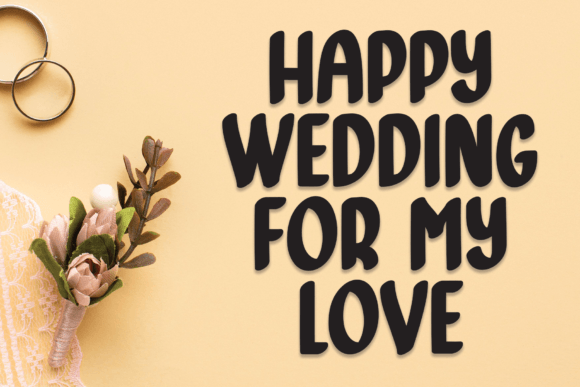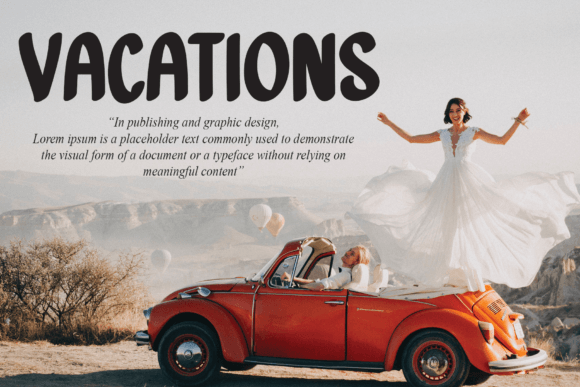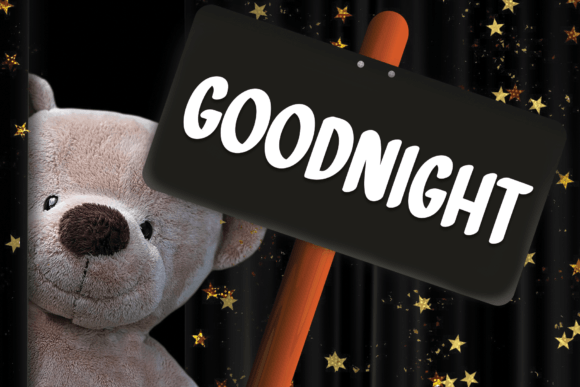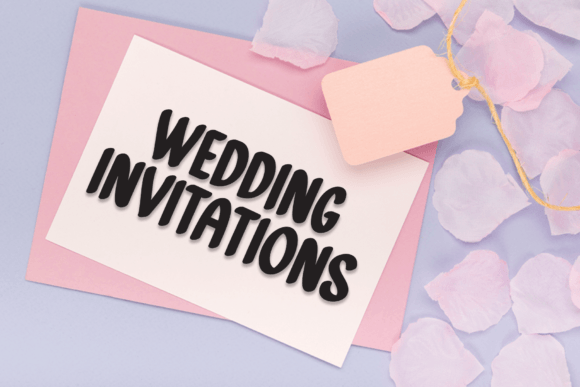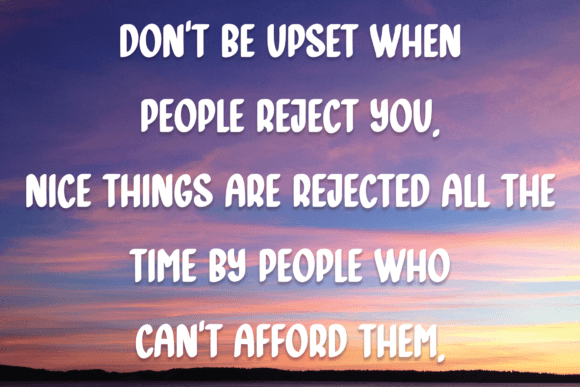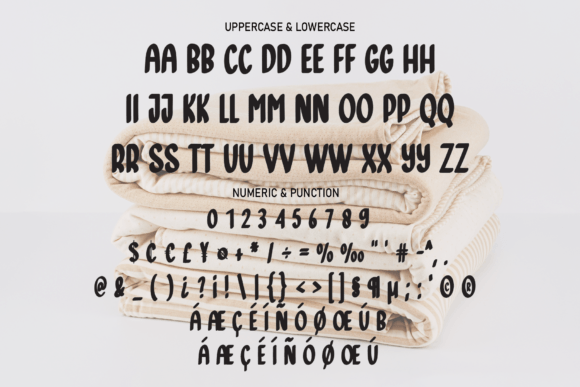
Introducing Blanket Winter Font: The Ultimate Modern Display Font
Are you tired of using the same old fonts for your designs? Look no further! Blanket Winter Font is here to revolutionize your typography game. This modern and bold display font is perfect for designers and crafters who want to add a touch of uniqueness to their projects.
What Makes Blanket Winter Font Special?
Blanket Winter Font boasts a latest style lettering that is both modern and eye-catching. Its bold and striking appearance makes it ideal for a wide range of applications, from wall displays and wedding invitations to social media posts and product packaging.
With Blanket Winter Font, the design possibilities are endless. Here are some of the many ways you can use this versatile font:
- Wall Displays: Create stunning wall displays that grab attention with Blanket Winter Font. Its bold letters are perfect for making a statement.
- Wedding Invitations: Add a touch of elegance and sophistication to your wedding invitations with this beautiful font.
- Social Media Posts: Make your social media posts stand out from the crowd with Blanket Winter Font. Its modern style is sure to grab attention.
- Logos: Create a unique and memorable logo for your brand with this striking font.
- Advertisements: Use Blanket Winter Font to create eye-catching advertisements that drive results.
- Product Packaging: Add a touch of personality to your product packaging with this bold font.
- Product Designs: Create stunning product designs that showcase your brand’s personality.
- Labels: Use Blanket Winter Font to create labels that stand out on store shelves.
- Photography: Add a touch of style to your photography with this beautiful font.
- Watermarks: Protect your images with a stylish watermark featuring Blanket Winter Font.
- Invitations: Create unique and stylish invitations for any occasion.
- Stationery: Add a touch of personality to your stationery with this modern font.
Why Choose Blanket Winter Font?
So why choose Blanket Winter Font over other display fonts? Here are just a few reasons:
- Unique Style: Blanket Winter Font boasts a unique and modern style that sets it apart from other fonts.
- Versatility: This font is versatile and can be used for a wide range of applications.
Tips for Using Blanket Winter Font
Here are a few tips for using Blanket Winter Font:
- Experiment with Sizes: Don’t be afraid to experiment with different font sizes to create visual interest.
- Pair with Other Fonts: Pair Blanket Winter Font with other fonts to create a unique and stylish look.
- Use on Dark Backgrounds: Use Blanket Winter Font on dark backgrounds to create a striking contrast.
- Use on Light Backgrounds: Use Blanket Winter Font on light backgrounds to create a clean and modern look.